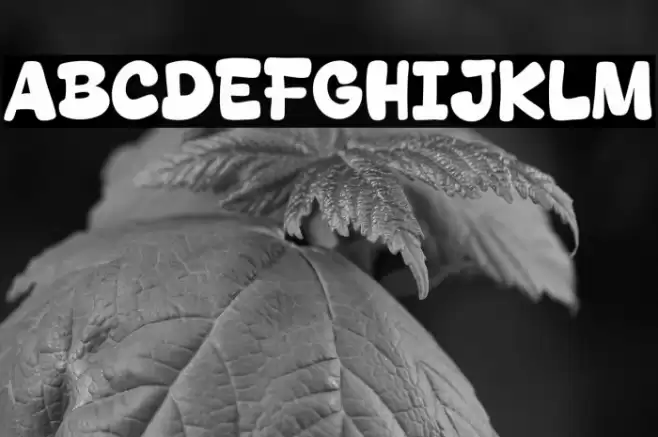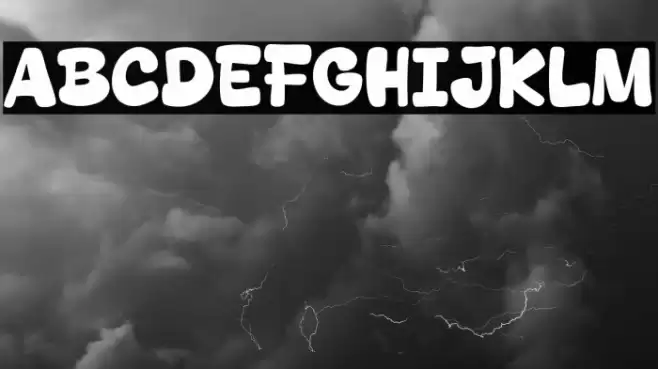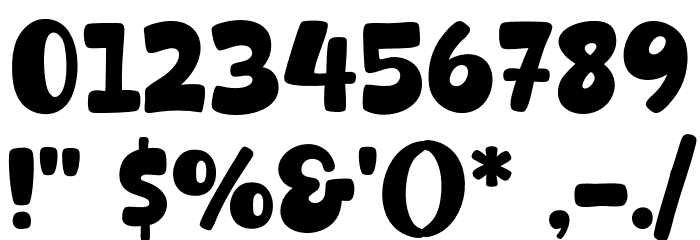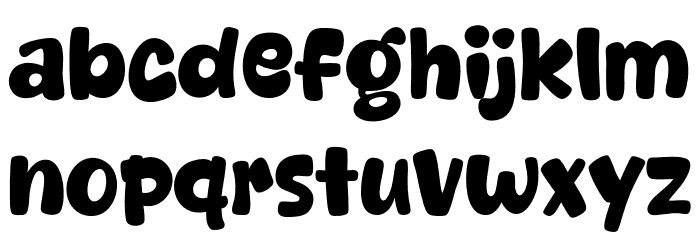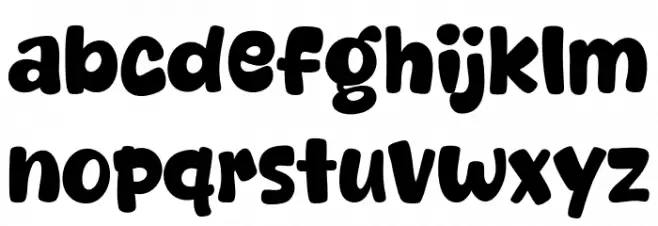
Dream Beige Font
Dream Beige Description
This playful and bold font features rounded, thick strokes that give it a friendly and approachable appearance. The characters are slightly irregular, adding a whimsical touch that makes it stand out. The uppercase and lowercase letters are well-balanced, with a consistent weight throughout. The numbers and special characters maintain the same playful style, ensuring a cohesive look across all text. This font is perfect for projects that require a fun and engaging aesthetic, such as children's books, playful branding, or creative posters.
A playful, bold font with rounded, thick strokes and a whimsical touch from Uncategorized fonts.
- Font: Dream Beige
- Proposed Projects: Ideal for children's books, playful branding, creative posters, and informal invitations.
- Overall Style: Playful